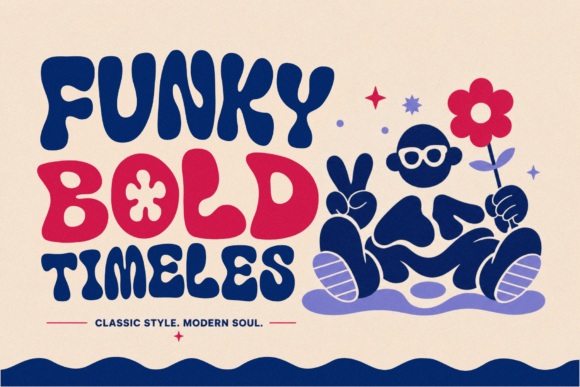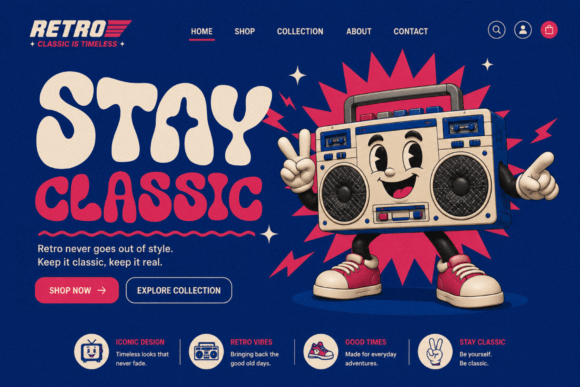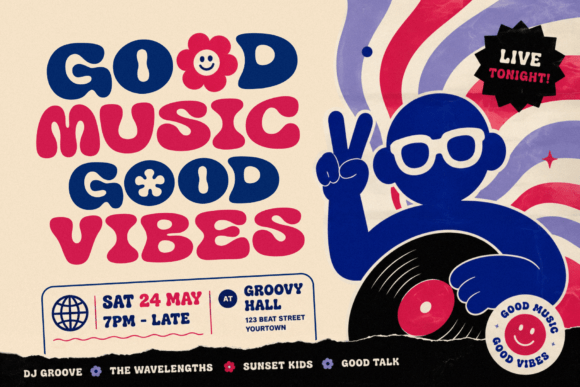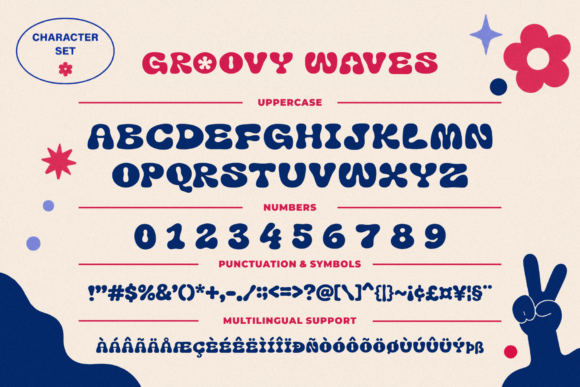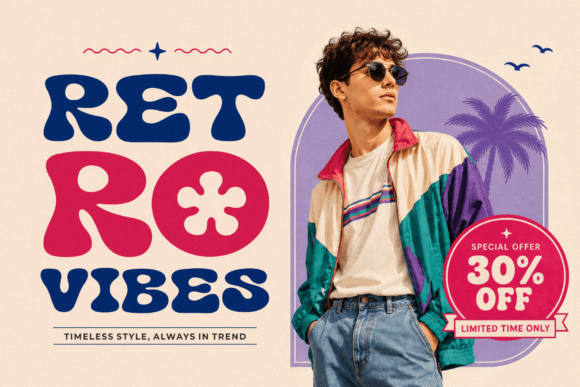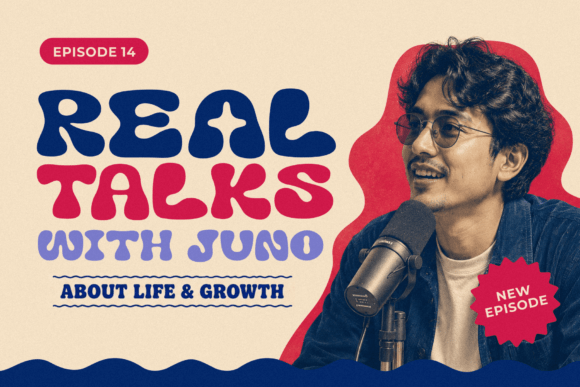
Introduction to Groovy Waves Font
Bring bold retro energy into your projects with Groovy Waves – Psychedelic Retro Font.
Inspired by vintage psychedelic lettering and flowing wave-shaped typography, this font is designed to create eye-catching visuals with a nostalgic retro atmosphere Its playful curves and distorted letterforms instantly add movement and character to any layout.
Key Features of Groovy Waves Font
Why Choose Groovy Waves Font?